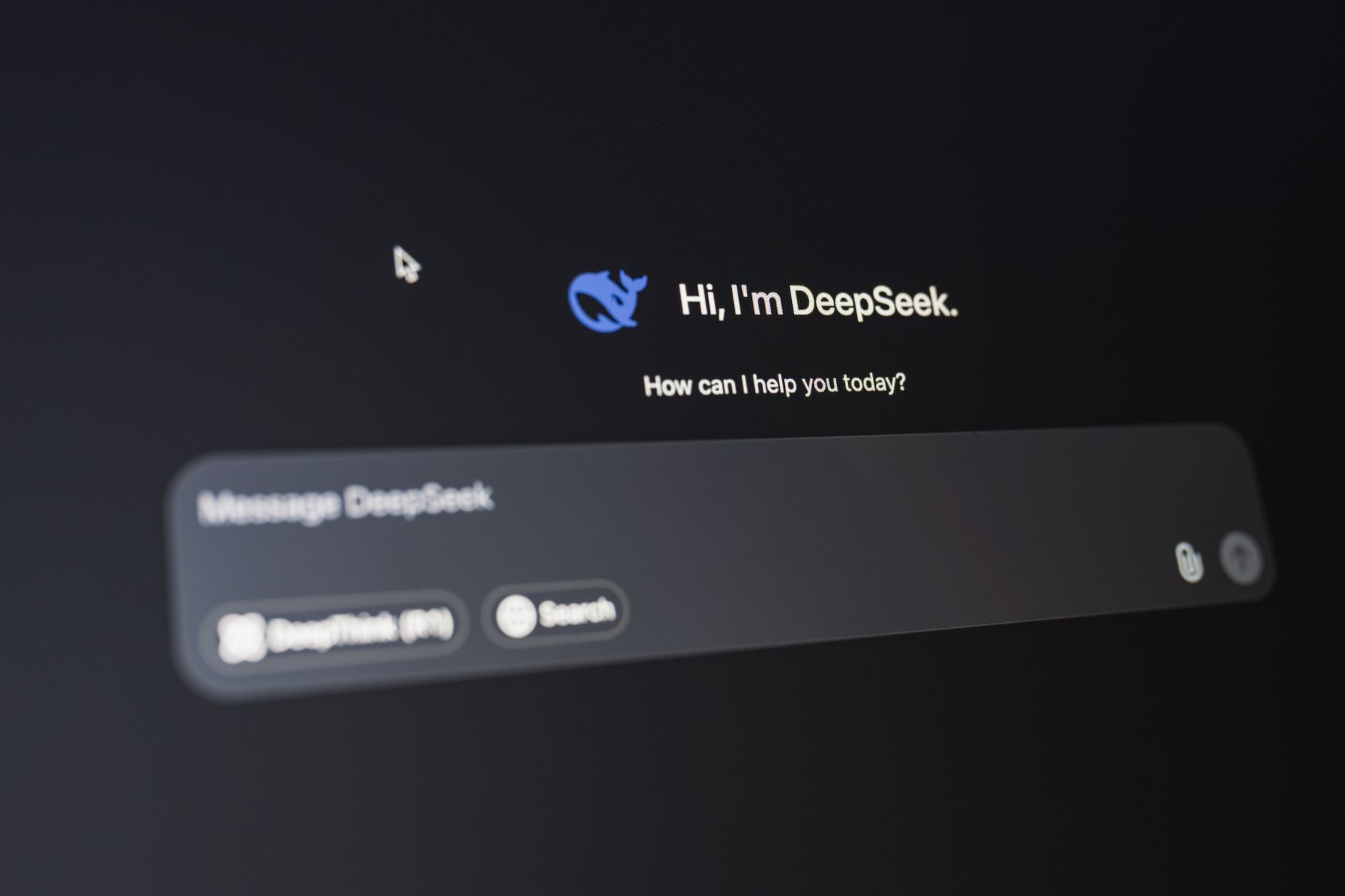
You’ve spent hours perfecting your UI typography. The hierarchy is spot-on, the line heights are comfortable, and your brand's custom sans-serif font looks incredibly elegant. But the moment you toggle on your site's dark mode, something goes wrong.
Suddenly, your clean, sophisticated body copy looks bloated. The letters seem to bleed into each other, looking half a weight thicker than they did on the light background.
This isn't a bug in your browser or a mistake in your font file. It is a biological quirk of the human eye called the irradiation illusion. Here is why it happens, and how you can fix it using CSS.
The irradiation illusion was first documented by Galileo Galilei in the 17th century and later analyzed by Hermann von Helmholtz. It describes how the human eye perceives bright shapes on dark backgrounds as being larger than dark shapes of the identical size on light backgrounds.
When light enters your eye, it scatters slightly on your retina. When you look at white text on a black screen, the light from the letters spills over onto the surrounding dark pixels in your field of vision. This creates a subtle halo effect, making the white strokes appear thicker and bolder.
In typography, this optical blooming fills in the negative space of your letters (such as the loops in "e" or "a"), reducing legibility and causing eye strain over long periods of reading.
To ensure your text looks visually consistent across both light and dark themes, you have to design for the human eye, not just the code. Here are four practical techniques to neutralize the irradiation illusion.
The most direct way to counter the irradiation illusion is to reduce the weight of your font in dark mode. If you are using font-weight: 400 (Regular) for your light mode body text, you should target 300 (Light) or 350 in dark mode.
Using CSS Custom Properties makes this incredibly straightforward:
:root {
--font-weight-body: 400;
--text-color: #111111;
--bg-color: #ffffff;
}
@media (prefers-color-scheme: dark) {
:root {
--font-weight-body: 300; /* Drop the weight in dark mode */
--text-color: #f3f4f6;
--bg-color: #121212;
}
body {
font-weight: var(--font-weight-body);
color: var(--text-color);
background-color: var(--bg-color);
}
Simply changing your font weight from 400 to 300 can sometimes cause a subtle layout shift because the letter widths change, altering line wraps.
If you are using a variable font, look to see if it supports the Grade (GRAD) axis. Grade alters the visual weight of the glyphs without changing their physical width or tracking. This means your text becomes optically thinner without shifting a single pixel of your layout.
@media (prefers-color-scheme: dark) {
body {
/* Lower the grade slightly for dark mode */
font-variation-settings: "GRAD" -20;
}
The stronger the contrast between your text and background, the more severe the light bleed will be. Avoid pairing pure white text (#ffffff) with a pure black background (#000000).
Instead, soften your dark mode palette. Use a deep charcoal or navy for the background, and an off-white or light gray for the body text.
/* Highly readable, low-glare dark mode pairing */
body {
background-color: #121214; /* Deep charcoal */
color: #e4e4e7; /* Soft off-white */
}
Browsers render text differently depending on the operating system. On macOS, Safari and Chrome apply a subpixel antialiasing technique that can make dark mode text look excessively heavy. You can gently thin out the text rendering on macOS using non-standard CSS properties:
@media (prefers-color-scheme: dark) {
body {
-webkit-font-smoothing: antialiased;
-moz-osx-font-smoothing: grayscale;
}
Note: Use this property sparingly and test across multiple displays, as it can occasionally make light fonts look too thin on non-retina screens.
When it comes to web design, mathematical consistency does not always equal visual harmony. If you use the exact same styles for both light and dark modes, your typography will suffer. By adjusting your font-weights, lowering your contrast, and utilizing variable fonts, you can ensure that your user interface remains sharp, legible, and beautiful in any light.